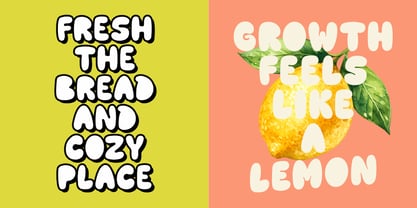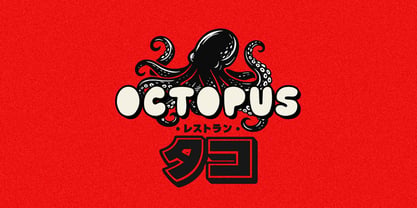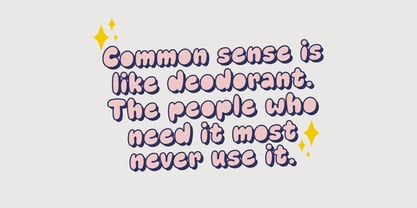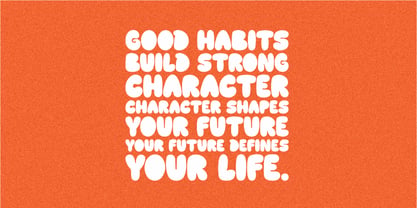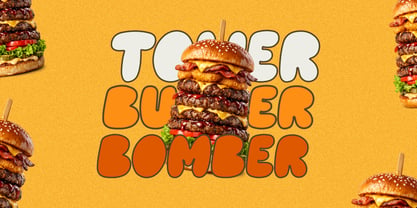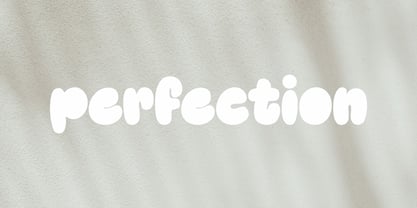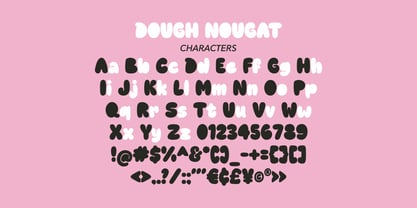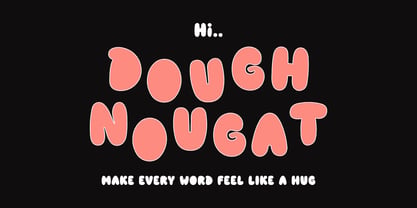
Dough Nougat
by Modikstype
The Dough Nougat Font Family was designed by Angga Monad and published by Modikstype. Dough Nougat contains 1 styles. More about this family
Introducing Dough Nougat — a playful bubbly display font packed with soft curves, chunky shapes, and a cheerful personality. Inspired by retro groovy aesthetics and sweet candy-like forms, this font brings a warm and fun vibe to every design.
Perfect for branding, packaging, posters, children’s projects, social media graphics, café menus, stickers, quotes, and creative merchandise. Its bold rounded letters make your typography feel friendly, expressive, and impossible to ignore.
Whether you're creating fun logos or eye-catching headlines, Dough Nougat adds a deliciously cute touch to your work.